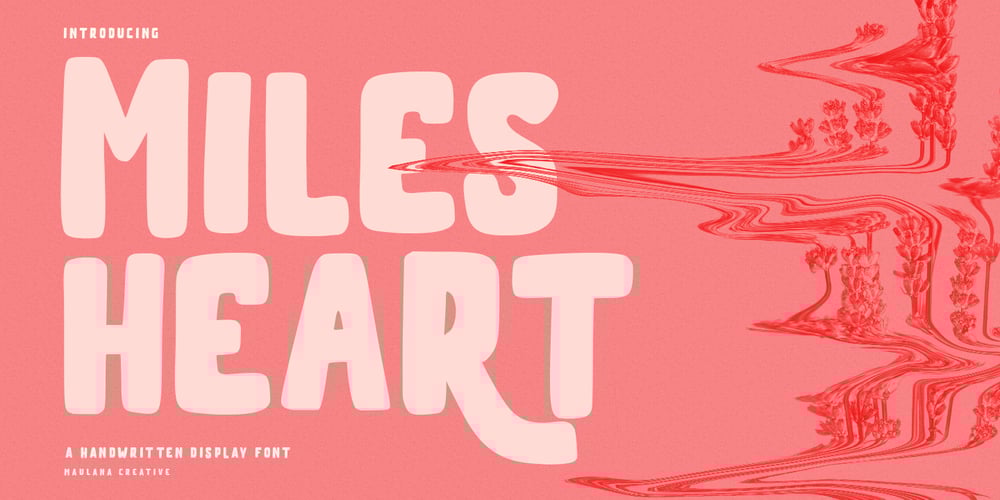
MC Milesheart Font Family was designed by Gilang Maulana and published by Maulana Creative. MC Milesheart contains 1 styles and family package options. Milesheart is a decorative handwritten sans display font. With bold block stroke, fun character with a bit of ligatures and alternates. To give you an extra creative work. Milesheart font support multilingual more than 100+ language. This font is good for logo design, Social media, Movie Titles, Books Titles, a short text even a long text letter and good for your secondary text font with sans or serif. Make a stunning work with Milesheart font.Cheers,Maulana Creative